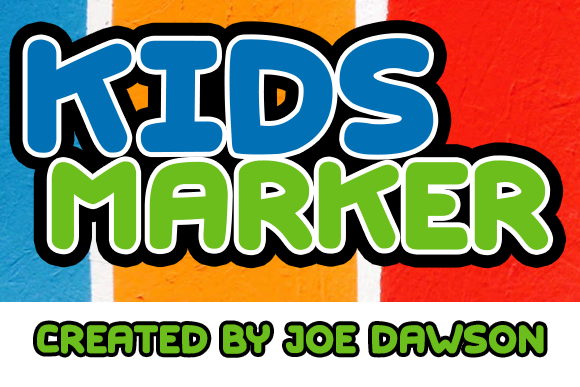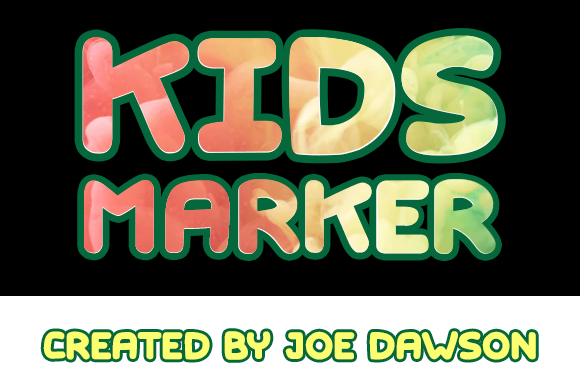
Introduction to Kids Marker Font
Do you remember the excitement of creating art as a child, the feeling of bringing your imagination to life with every colorful stroke of the marker? For designers, that same sense of joy and creativity can be achieved with the right design resource – the Kids Marker Font. This adorable display font is perfect for adding a playful touch to your designs and making them stand out from the crowd.
With its high quality and transparent background, the Kids Marker Font is a valuable addition to any designer’s toolkit. Whether you’re working on a creative project for a children’s brand or simply want to add some whimsy to your designs, this font is sure to bring a smile to your face. And the best part? It’s available for free download, making it a must-have resource for designers of all levels.
Key Features of Kids Marker Font
- High-quality design: The Kids Marker Font is designed with precision and attention to detail, making it perfect for creative projects.
- Transparent background: This allows for easy use on any background, giving you complete design control.
- Unique characteristics: The Kids Marker Font features a playful, handwritten style that’s perfect for adding a personal touch to your designs.
- Perfect for kids’ projects: As the name suggests, the Kids Marker Font is ideal for creating engaging and fun designs for kids, such as children’s books, educational materials, and more.
Honest Review: Kids Marker Font
I recently had the opportunity to work with the Kids Marker Font, and I must say it’s been a great addition to my design resources. The font is perfect for creating a fun and playful atmosphere in any creative project, whether it’s a children’s book, a website, or even a social media post.
What works well with this font is its high quality and versatility. The Kids Marker Font comes in a range of styles, from bold and colorful to thin and elegant. This makes it an excellent choice for designers who want to add some personality to their designs without compromising on quality.
Some of the standout features of this font include:
- Transparent background, making it easy to layer with other design elements
However, I did encounter a few limitations. The font can be a bit overwhelming if used extensively, and some of the styles may not be suitable for more formal designs.
Overall, I’m impressed with the Kids Marker Font and would definitely recommend it to designers looking for a fun and creative design resource. With its high quality, versatility, and transparent background, it’s a great addition to any design library.
Kids Marker Font
The Kids Marker Font is ideal for creating fun and colorful designs for children, such as educational materials, party invitations, and activity sheets. It’s also great for adding a playful touch to your branding and marketing materials.
To get the most out of the Kids Marker Font, try combining it with other design elements, such as bright colors and fun graphics. You can also use the font with a transparent background to create a high-quality design that stands out. Additionally, you can use the font in conjunction with other design resources, such as images and vectors, to create a unique and engaging design.